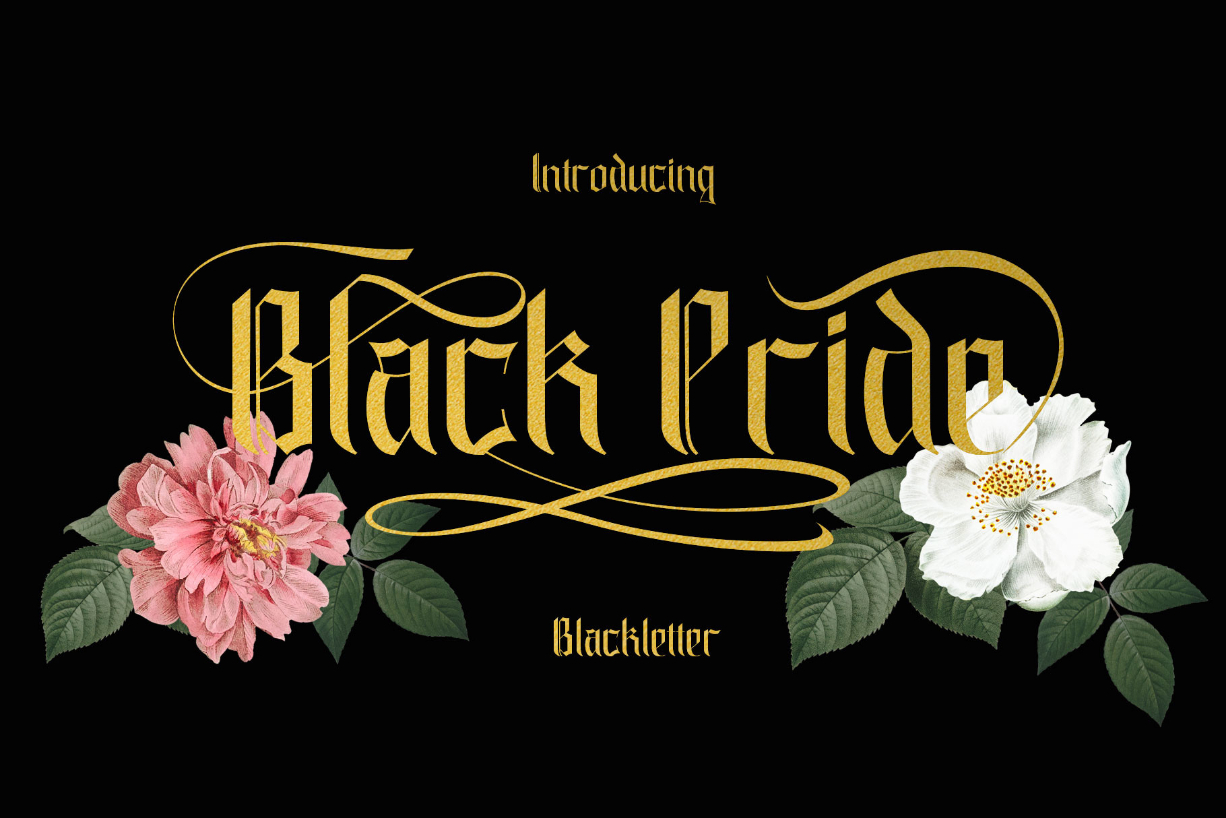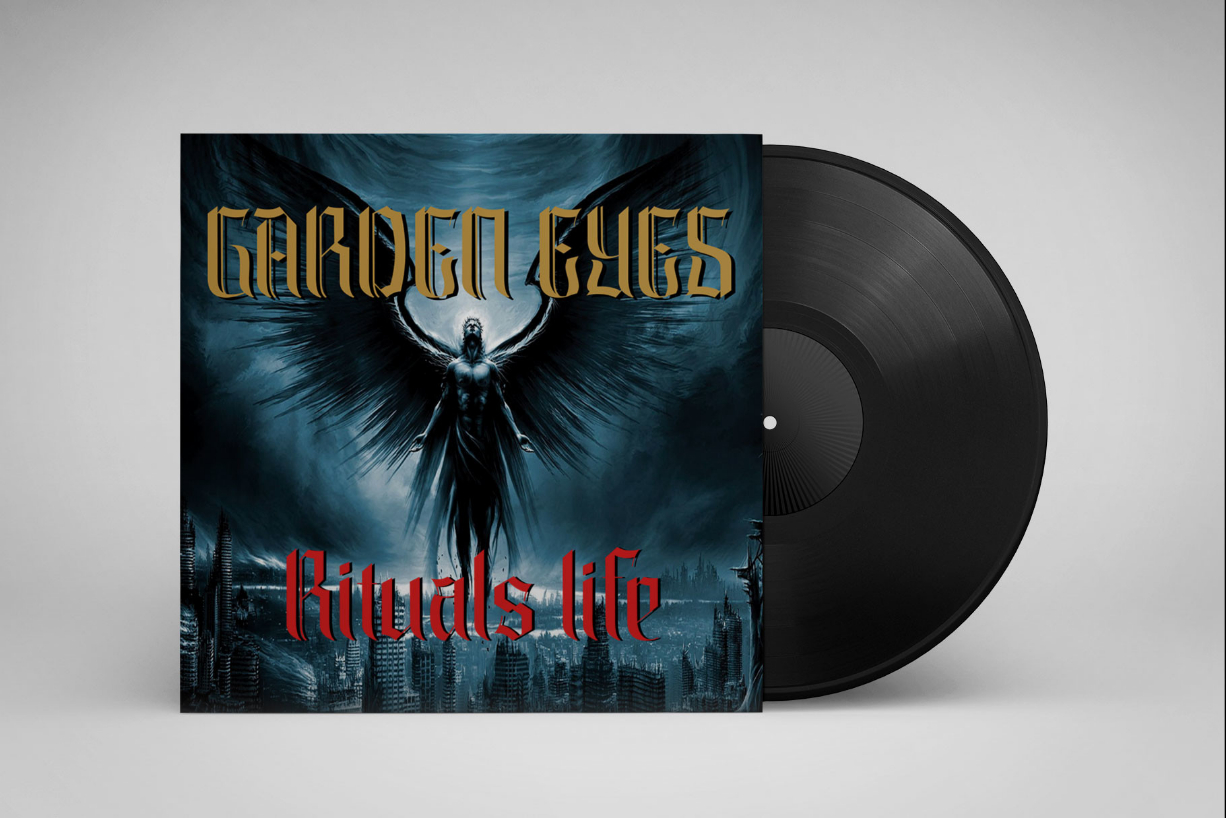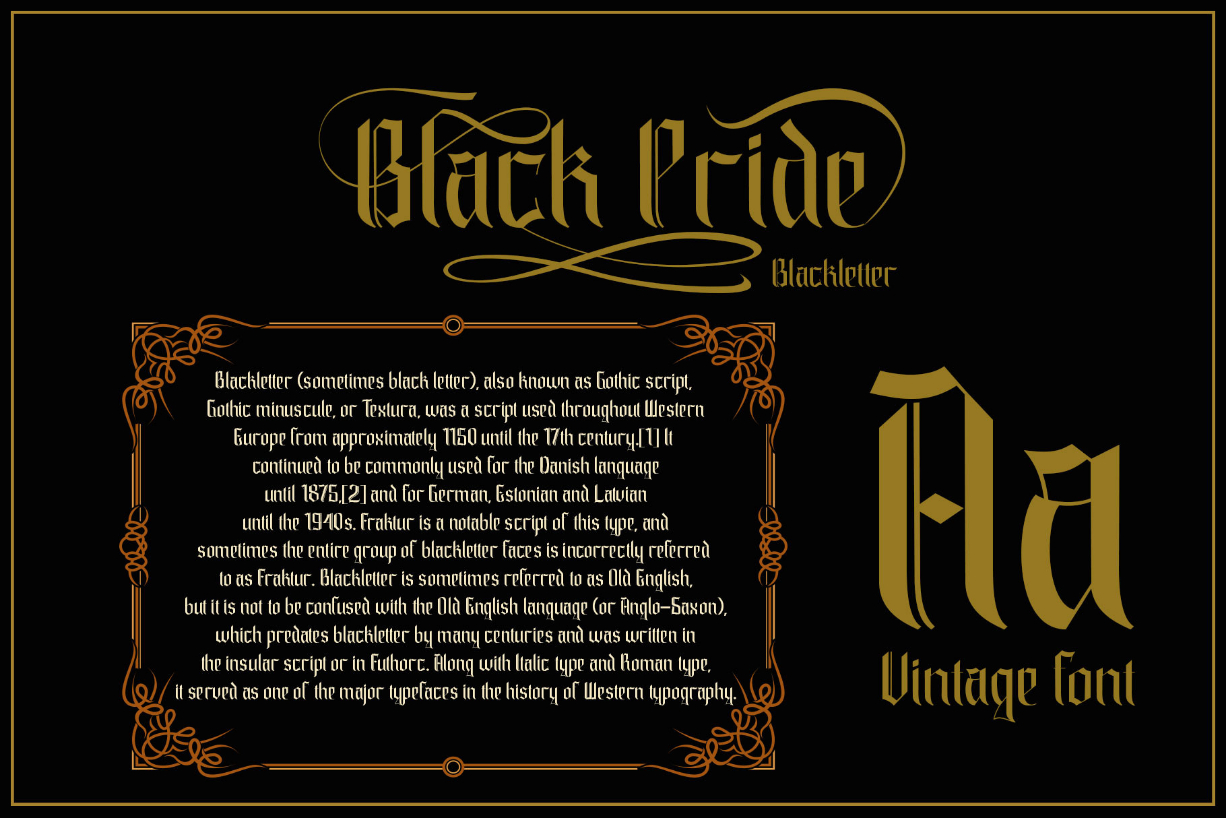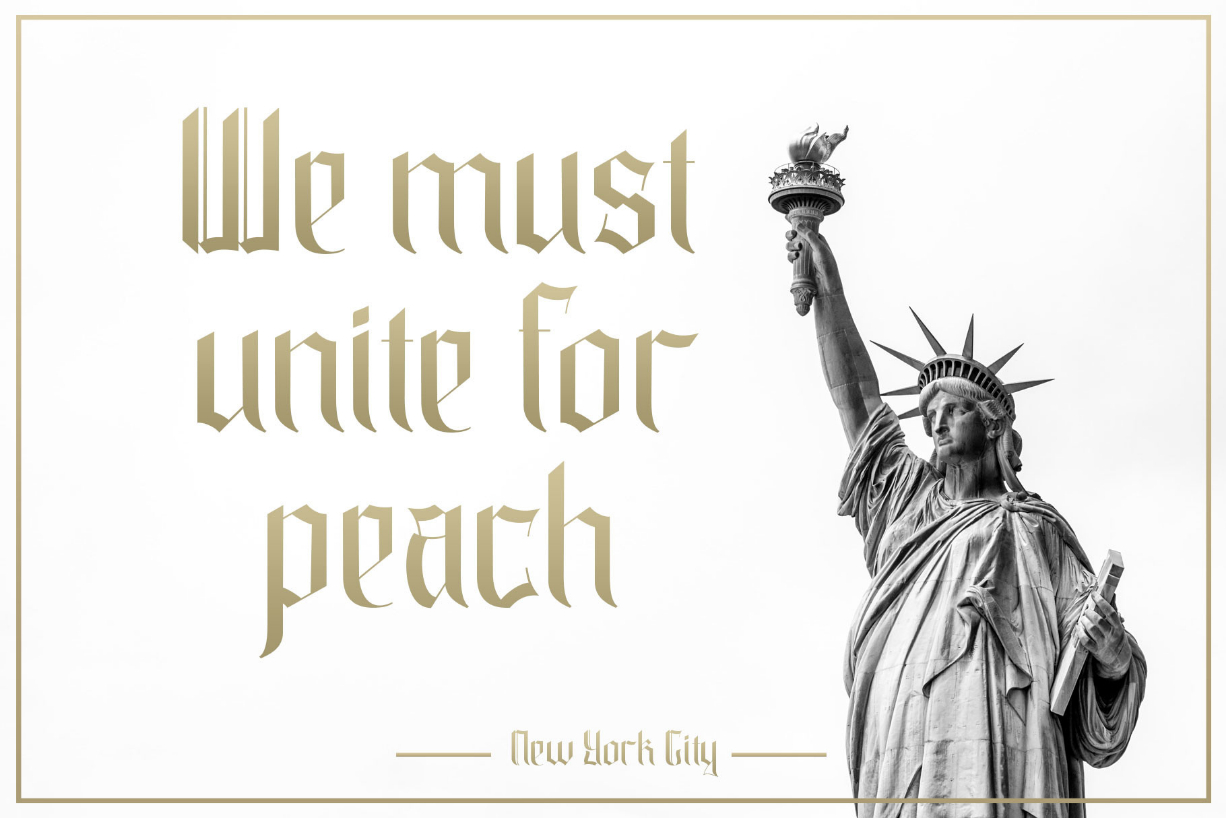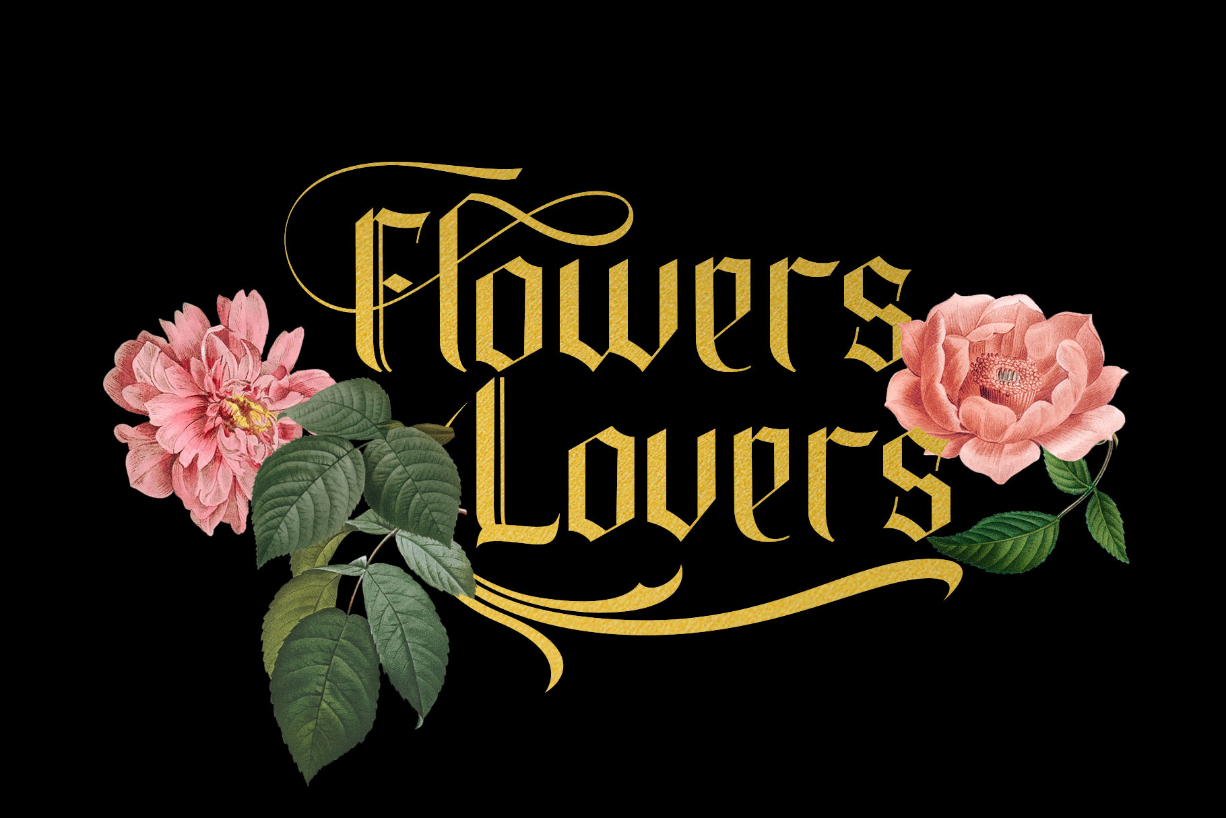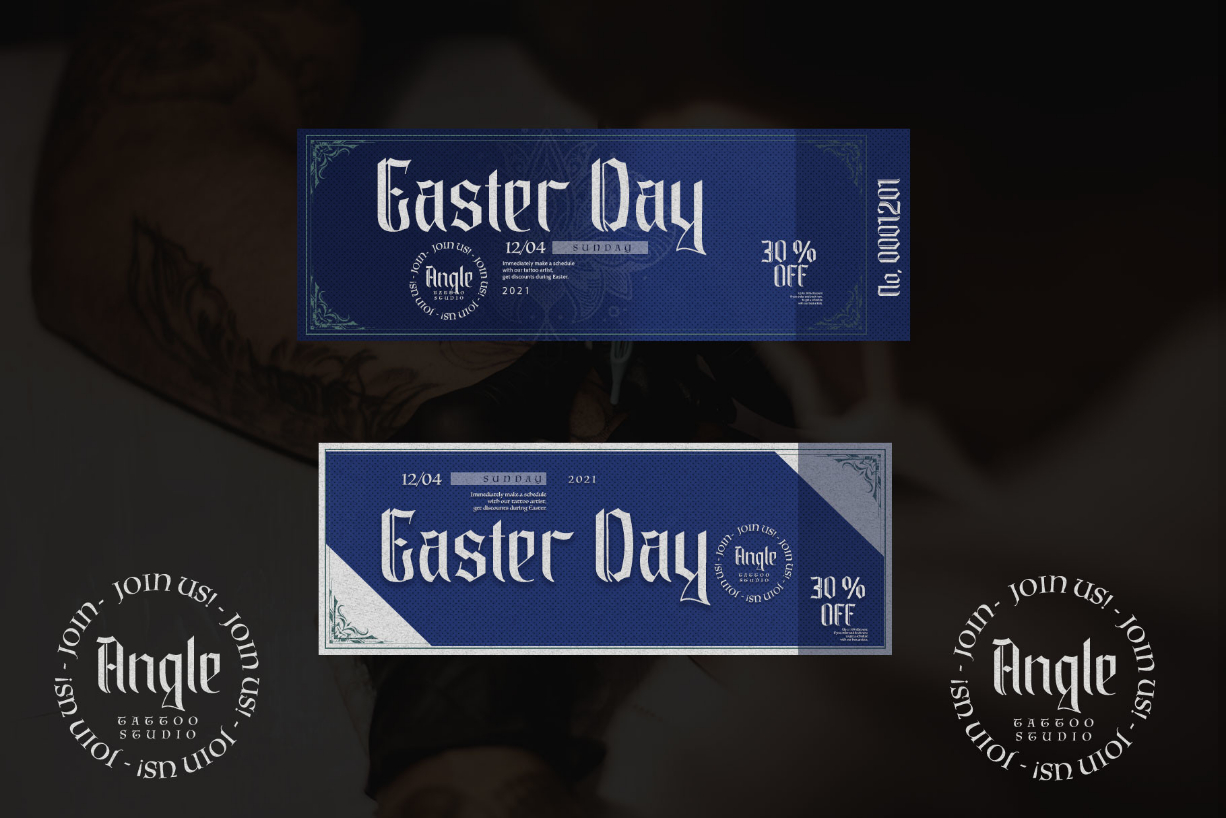
Black Pride Font
About Black Pride Font
Black Pride is an elegant and distinct blackletter font. This font is imposing and features uniquely shaped letters, and as a result, it will easily match a wide range of creations that require a distinct touch.